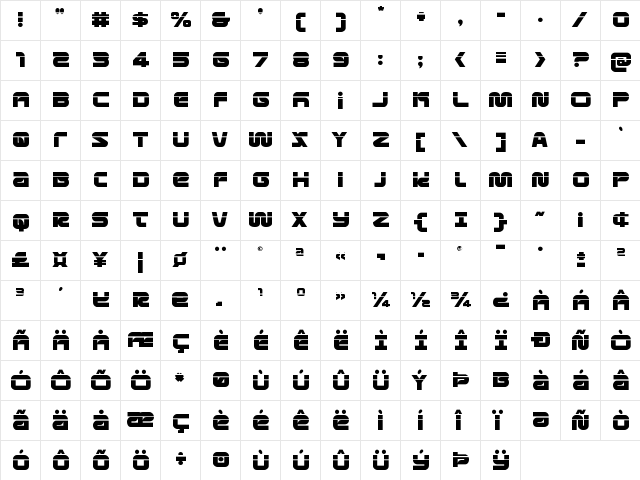
Metronauts Laser Regular
Design Context for Metronauts Laser Typeface
Metronauts Laser is a composed and adaptable typeface that performs quietly and consistently across a wide range of design contexts.